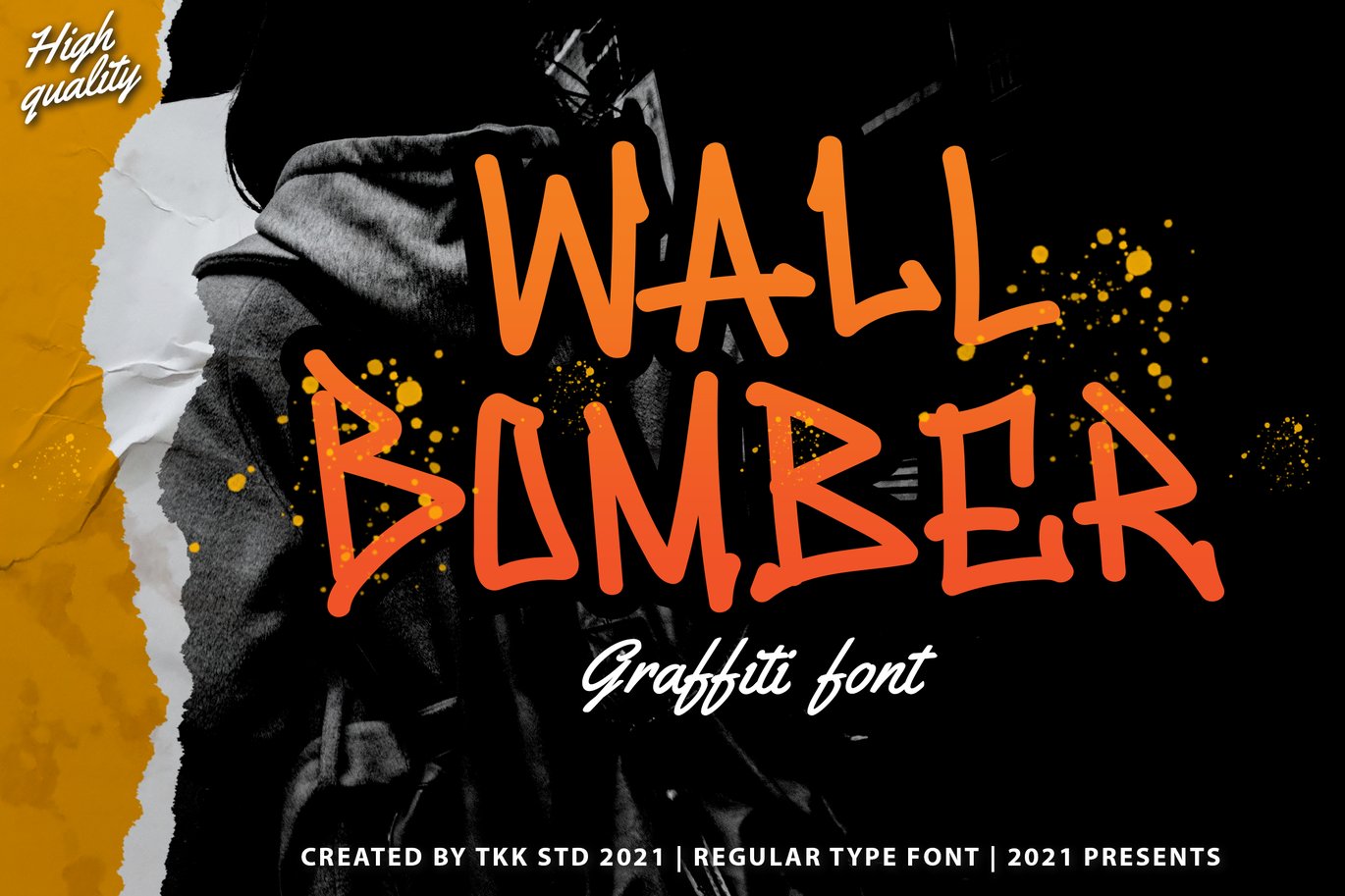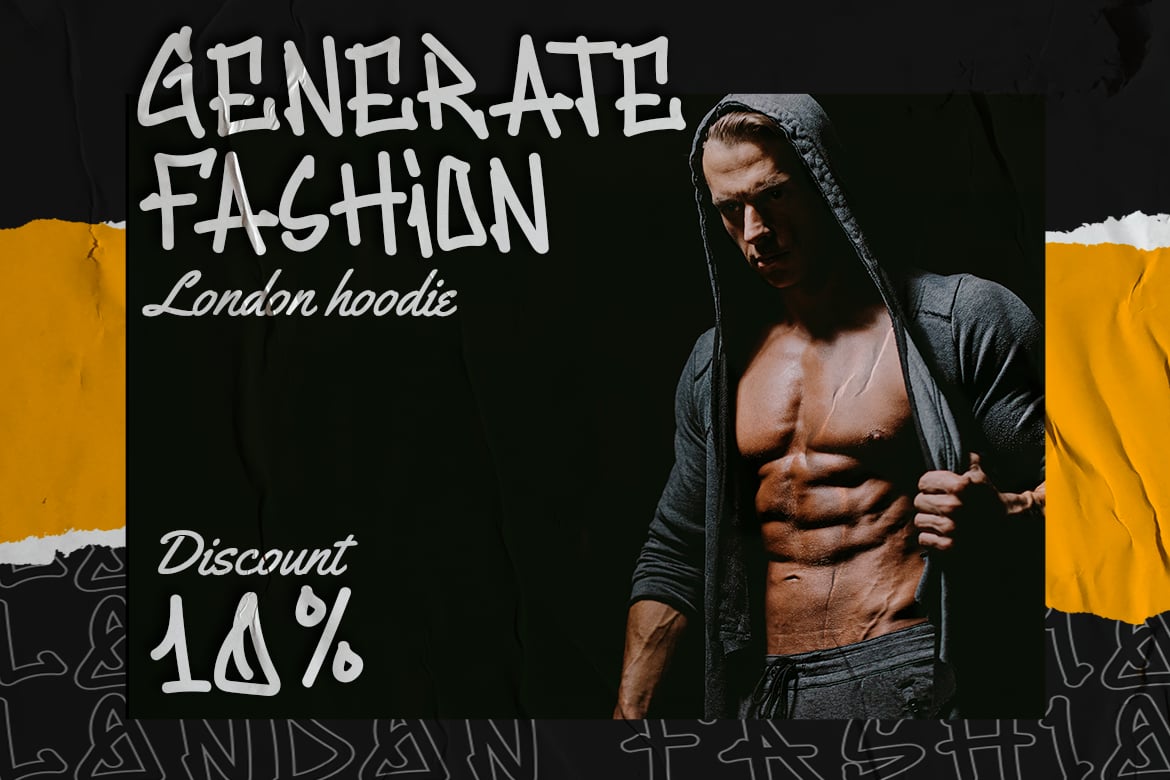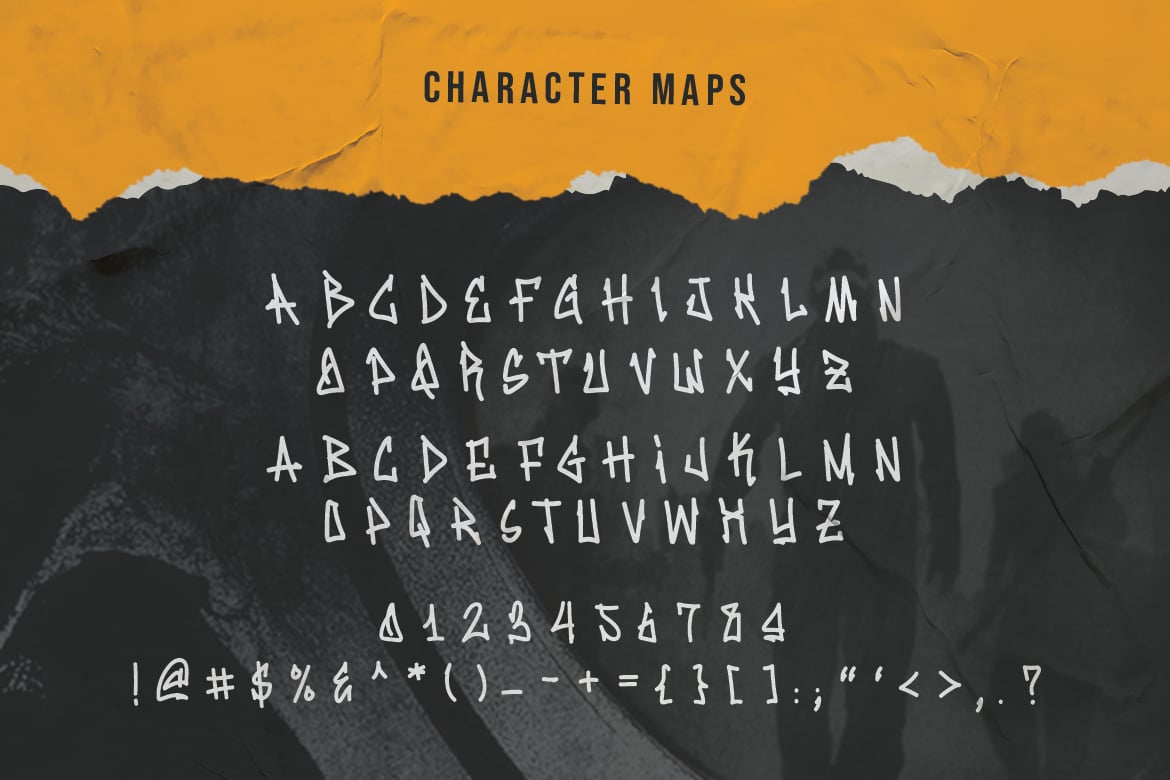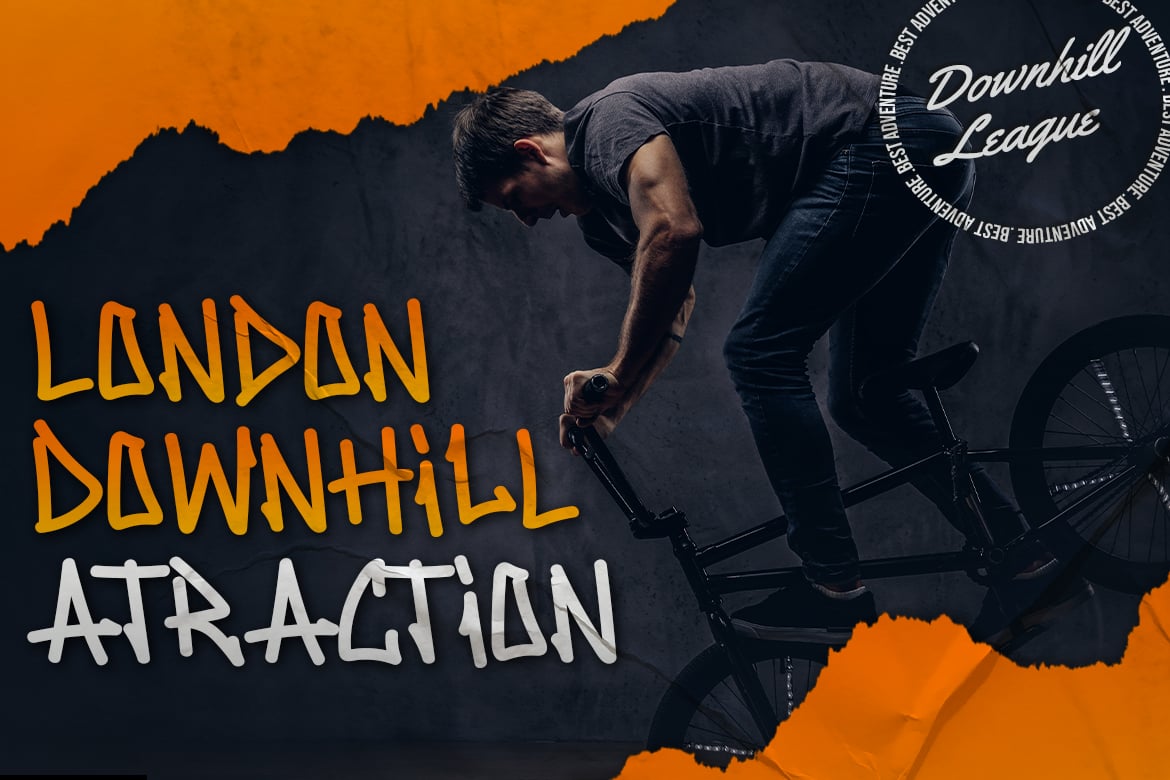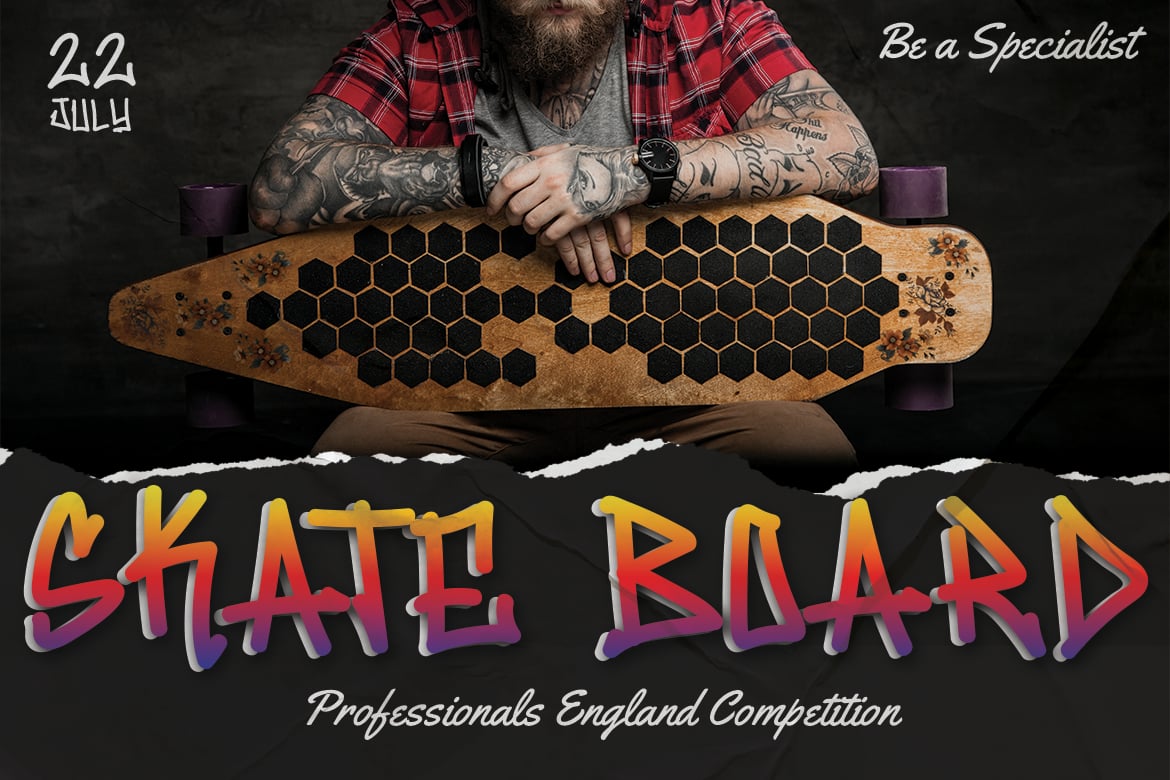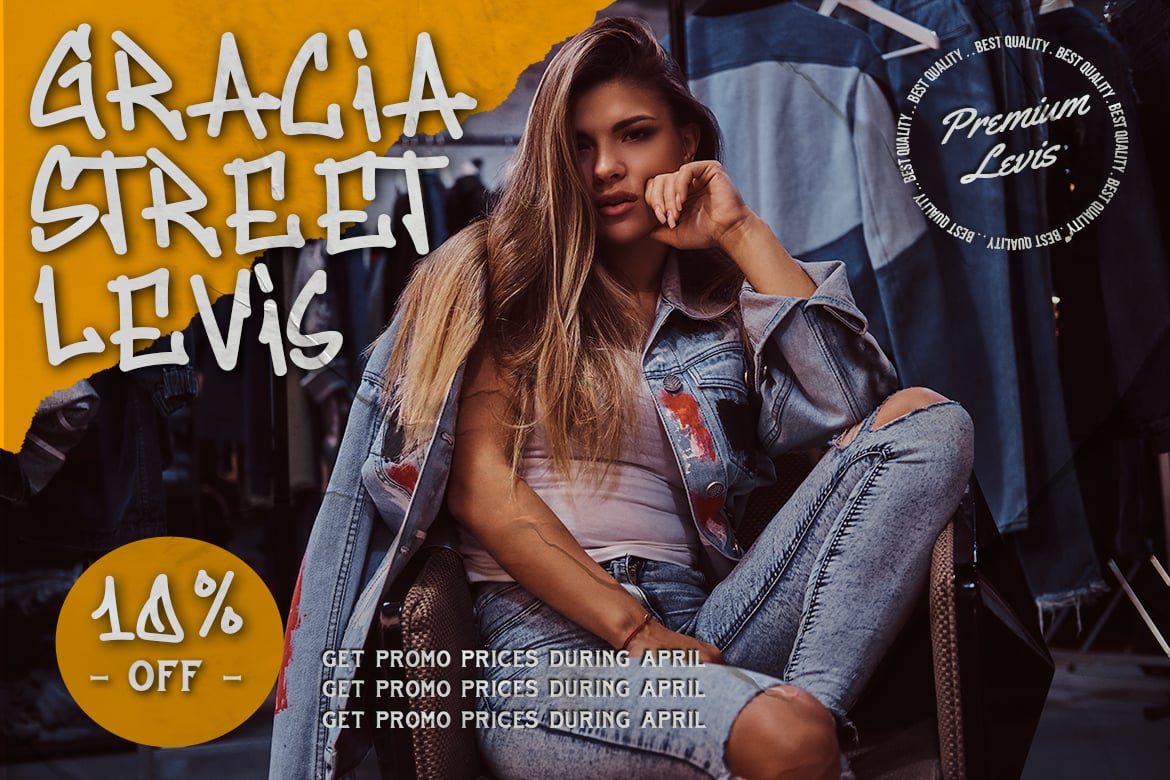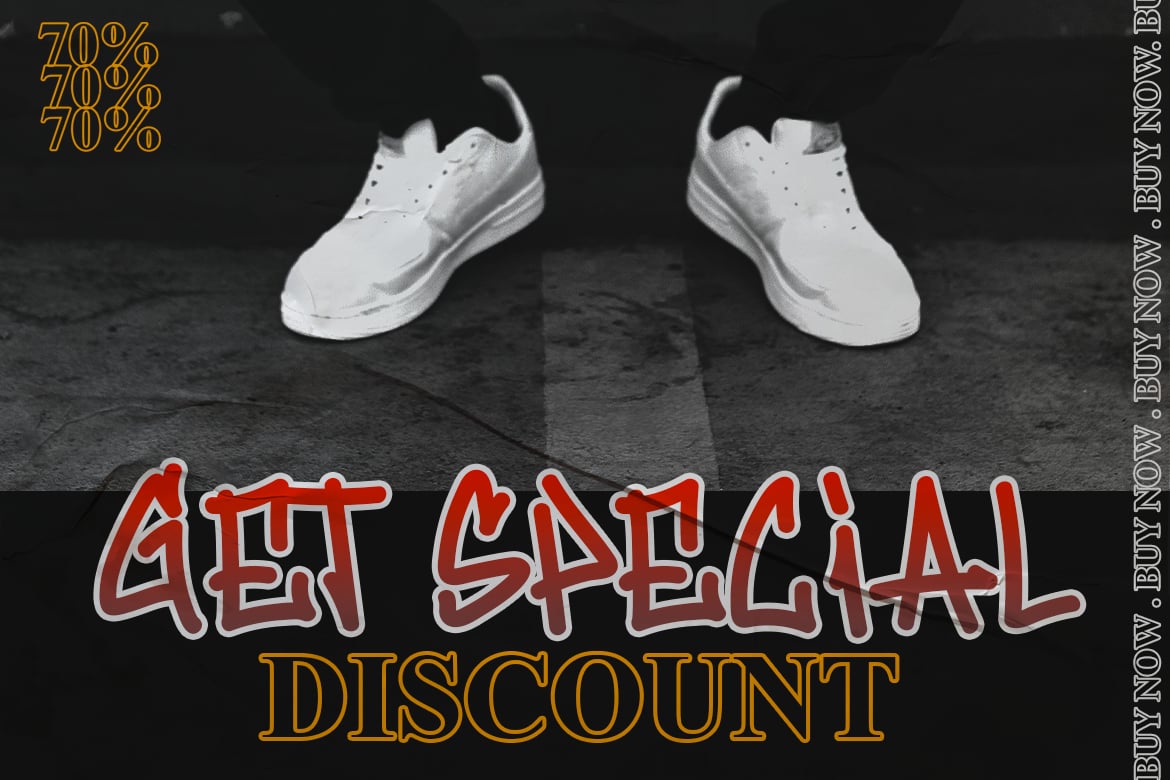
Graffiti Font – Wall Bomber
Wall Bomber – Urban graffiti font
The wall need to be bombed by art. and Wall Bomber is here to create that.
It will make your art pop and stand out from the rest of graffity vreated by other artist.
Suit perfectly for Online Games, vintage logo, surfing apparel, beach poster, movie title,street magazine, youtube covers, youtube thumbnails, social media page covers and so on…